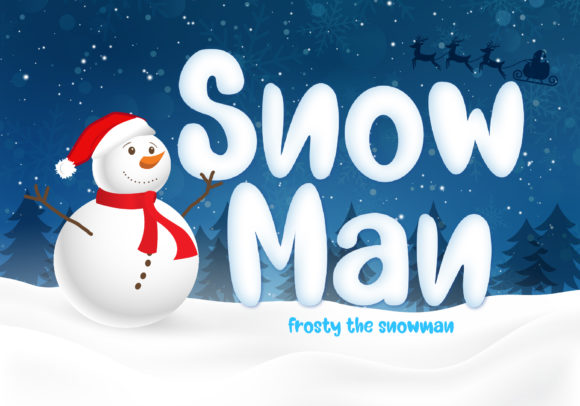
Snow Man Font: A Creative Tool for Bold Design
Snow Man is a sweet and chunky lettered display font that brings warmth, charm, and visual impact to any design project. Its bold, rounded forms and playful weight make it ideal for catching attention while maintaining readability. Whether you're designing logos, social media posts, or packaging, Snow Man can add a unique personality to your work.
Understanding Snow Man's Unique Style
Snow Man stands out with its thick strokes and soft curves, giving it a friendly and approachable feel. This font is especially effective in designs that aim to evoke positivity, nostalgia, or comfort. The letterforms are slightly irregular, adding character without becoming distracting.
What makes Snow Man particularly useful is its versatility. It works well in both digital and print formats and looks great at various sizes. The fontās structure ensures that even when used in large headlines, the text remains legible and visually engaging.
Why Snow Man Works for Creators
- Attention-grabbing: The chunky style of Snow Man immediately draws the eye, making it perfect for headlines, banners, and call-to-action buttons.
- Emotional appeal: The softness of the letters adds a sense of warmth, which can be beneficial for branding that focuses on community, family, or lifestyle themes.
- Adaptable: From minimalist layouts to vibrant illustrations, Snow Man integrates smoothly into different design aesthetics.
Creative Applications of Snow Man
Designers and creators can use Snow Man in numerous ways. Here are some practical ideas to explore:
- Brand Identity: Use Snow Man as the primary font for logos or brand names to create a memorable and inviting presence.
- Marketing Materials: Incorporate it into flyers, posters, or promotional materials to convey a sense of fun and approachability.
- Digital Content: Apply it to website headers, blog titles, or social media captions to enhance visual interest and engagement.
- Packaging Design: Add a touch of whimsy to product labels, gift boxes, or packaging by using Snow Man for text elements.
- Childrenās Products: Its playful nature makes it an excellent choice for educational materials, toys, or books aimed at younger audiences.
How to Use Snow Man Effectively
To get the most out of Snow Man, consider these tips:
- Pair it with clean sans-serif fonts: For balance, use Snow Man alongside simpler fonts like Helvetica or Arial for body text.
- Limit usage: Since Snow Man is a display font, avoid using it for long paragraphs. Save it for headings and highlights.
- Experiment with spacing: Adjust letter and line spacing to ensure the text doesnāt feel cluttered, especially in larger formats.
- Play with color: Use contrasting colors to make Snow Man stand out. Pastel tones can soften its look, while bright hues can energize it.
Real-World Examples and Inspiration
Imagine a bakery logo using Snow Man for the brand name. The font instantly communicates a cozy, welcoming vibe that aligns with the brandās identity. Similarly, a childrenās book cover featuring Snow Man could bring a sense of joy and playfulness to the title.
For marketers, Snow Man can help craft compelling headlines for campaigns focused on wellness, lifestyle, or community events. Its friendly tone can resonate well with audiences seeking connection and authenticity.
Entrepreneurs launching new products might find Snow Man useful for creating eye-catching packaging or promotional content that stands out on shelves or online.
Customizing Your Approach
The beauty of Snow Man lies in how adaptable it is. Depending on your audience and goals, you can tweak its application:
- For educators: Use it in classroom materials or presentations to make learning more engaging.
- For freelancers: Add it to your portfolio or website to showcase your creative range and attention to detail.
- For small businesses: Create a consistent brand image with Snow Man as a central element in your visual identity.
Staying Original and Audience-Friendly
While Snow Man is a powerful tool, itās important to use it thoughtfully. Avoid overusing it or applying it to contexts where it doesnāt fit naturally. Always consider your audienceāwhat emotions do you want to evoke? What message should your design communicate?
Keep your designs clear and organized. Even with a bold font like Snow Man, maintain good typography practices such as proper alignment, contrast, and hierarchy. These principles ensure that your work remains professional and easy to read.
By combining Snow Man with thoughtful design choices, you can create visuals that are not only striking but also meaningful and effective.
Final Thoughts
Snow Man is more than just a fontāitās a creative asset that can elevate your projects with its unique blend of charm and clarity. Whether you're a designer, marketer, educator, or entrepreneur, incorporating Snow Man into your workflow can help you stand out in a crowded space.
Explore its possibilities, experiment with different styles, and let it inspire your next creative endeavor. With the right approach, Snow Man can become a valuable part of your design toolkit, helping you connect with your audience in a fresh and impactful way.